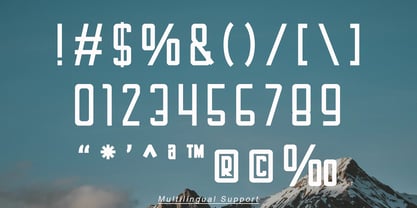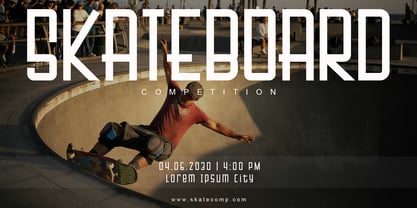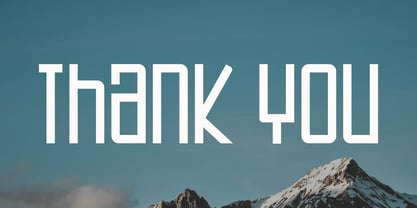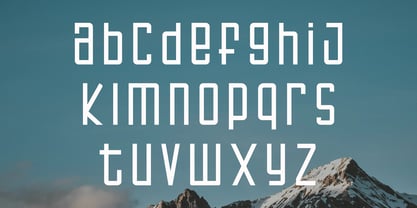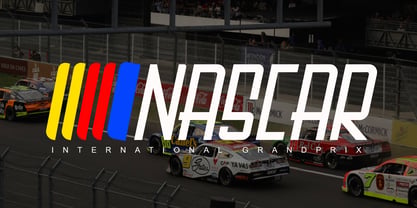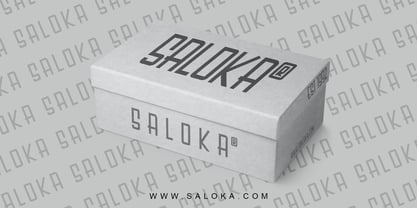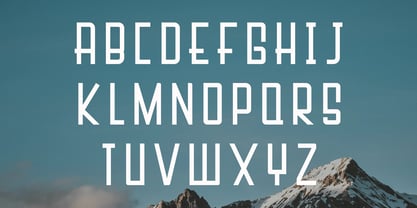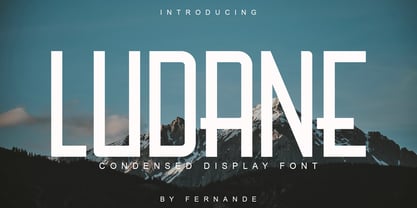
Ludane Condensed
The Ludane Condensed Font Family was designed by Angga Fernandi and published by Fernande. Ludane Condensed contains 2 styles and family package options. More about this family
Introducing LUDANE, a modern condensed display font designed to deliver strong visual impact with a clean and minimal aesthetic. Featuring tall proportions, sharp geometry, and balanced spacing, LUDANE is perfect for headlines, branding, posters, and editorial design that demand attention. Its sleek and contemporary style makes it highly versatile across both digital and print applications, while the condensed structure allows for efficient use of space without sacrificing readability. LUDANE brings a bold, confident voice to any design, making it ideal for modern branding, advertising, and creative layouts.